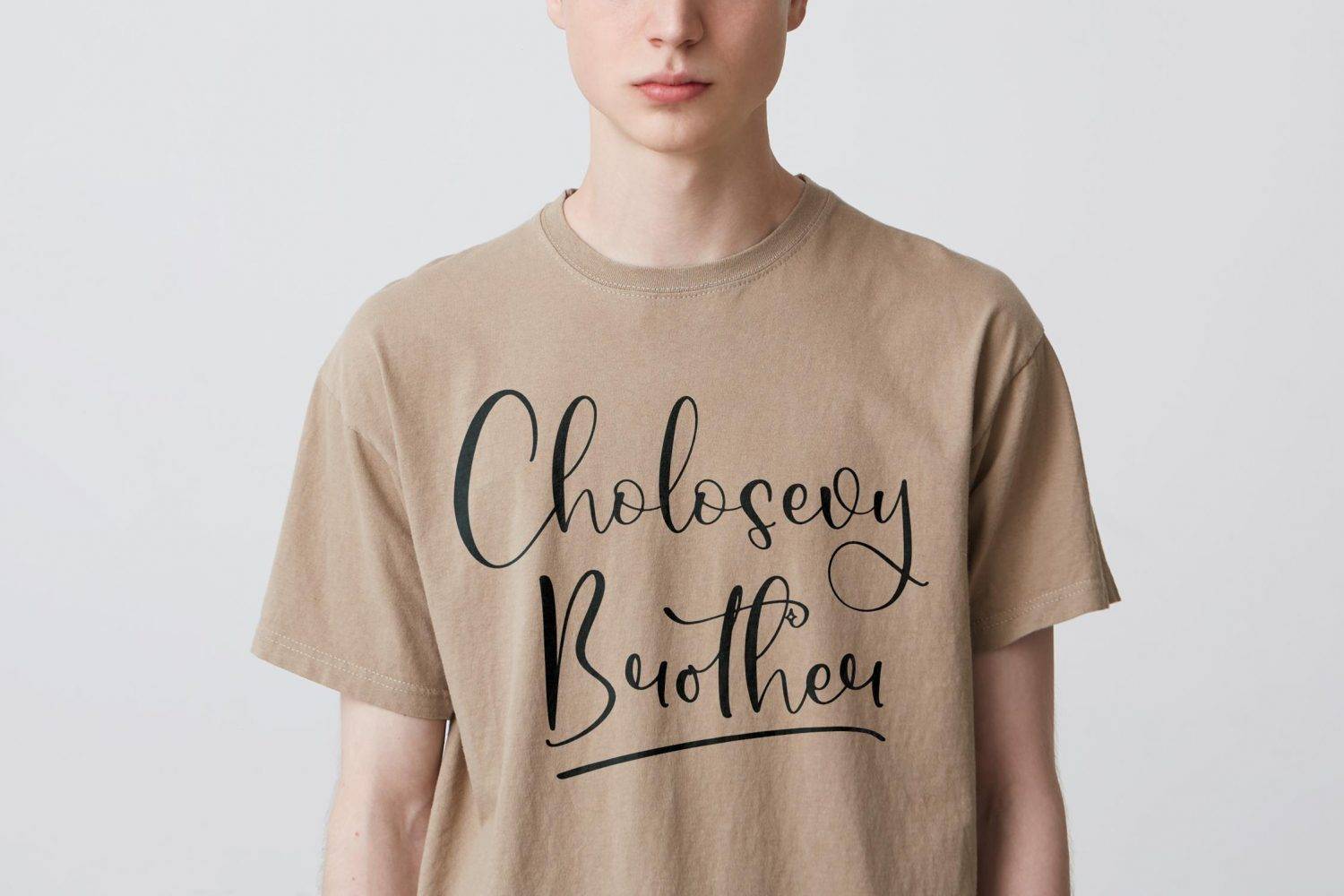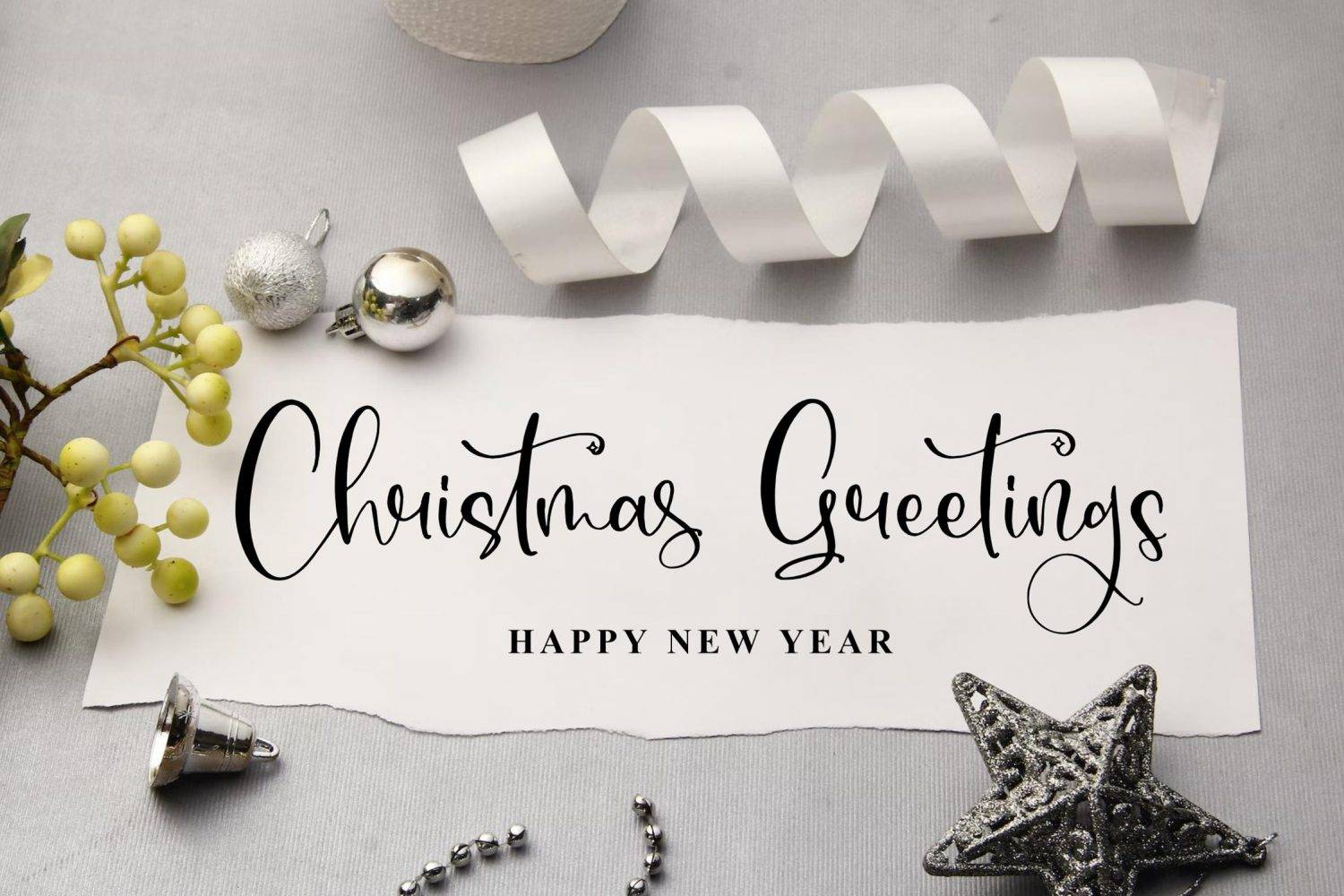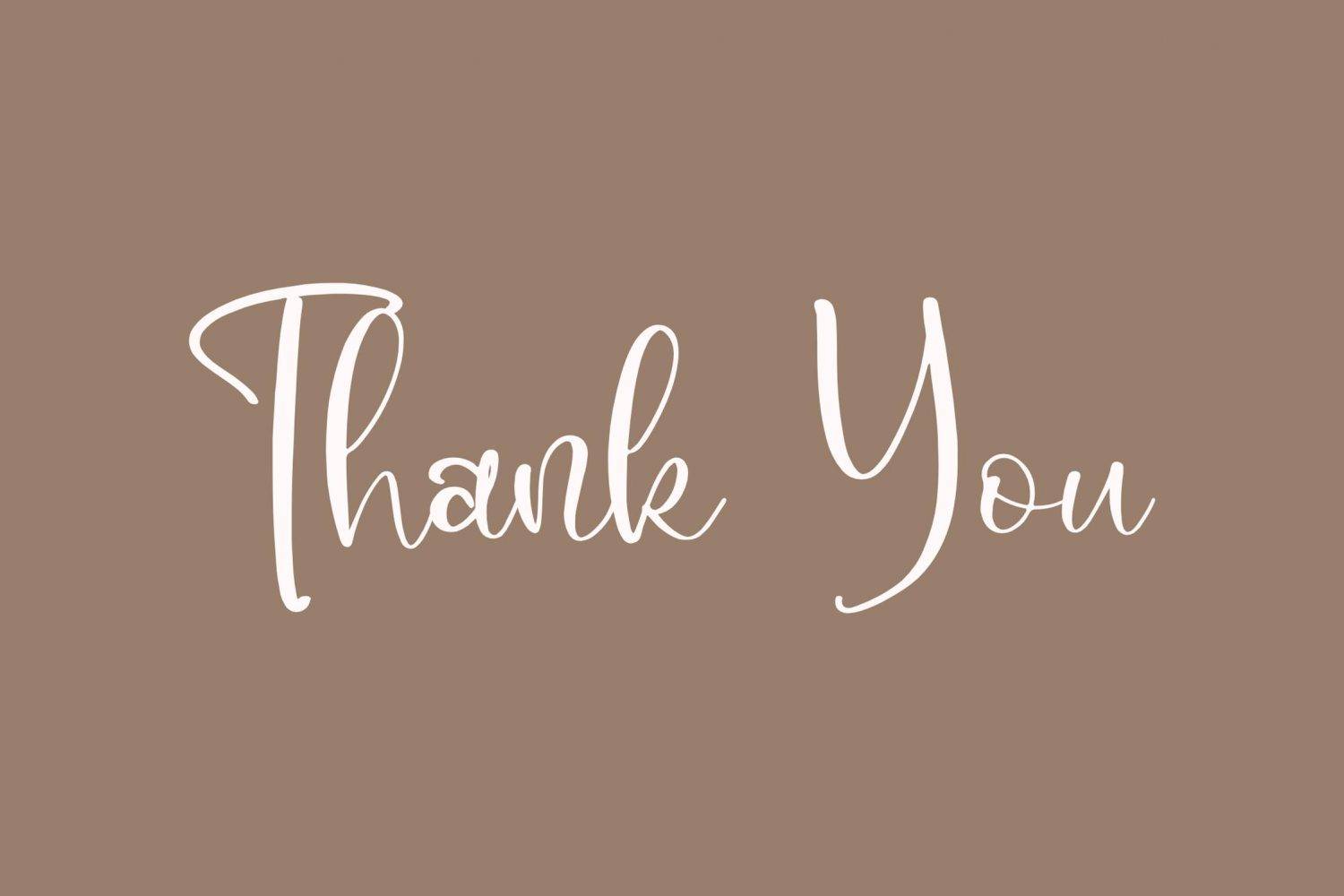
Christmas Pudding is a playful and elegant script font featuring tall, slender letterforms with delicate loops and swirls that add a whimsical touch. Its light weight and fluid curves make it perfect for festive, feminine, or creative projects where a charming, handcrafted feel is desired. Ideal for holiday cards, invitations, and branding that aims to convey warmth and personality, this font adds a stylish, joyful flair to any design.
Christmas Pudding Font
About Christmas Pudding Font
| Font family | Christmas Pudding Font |